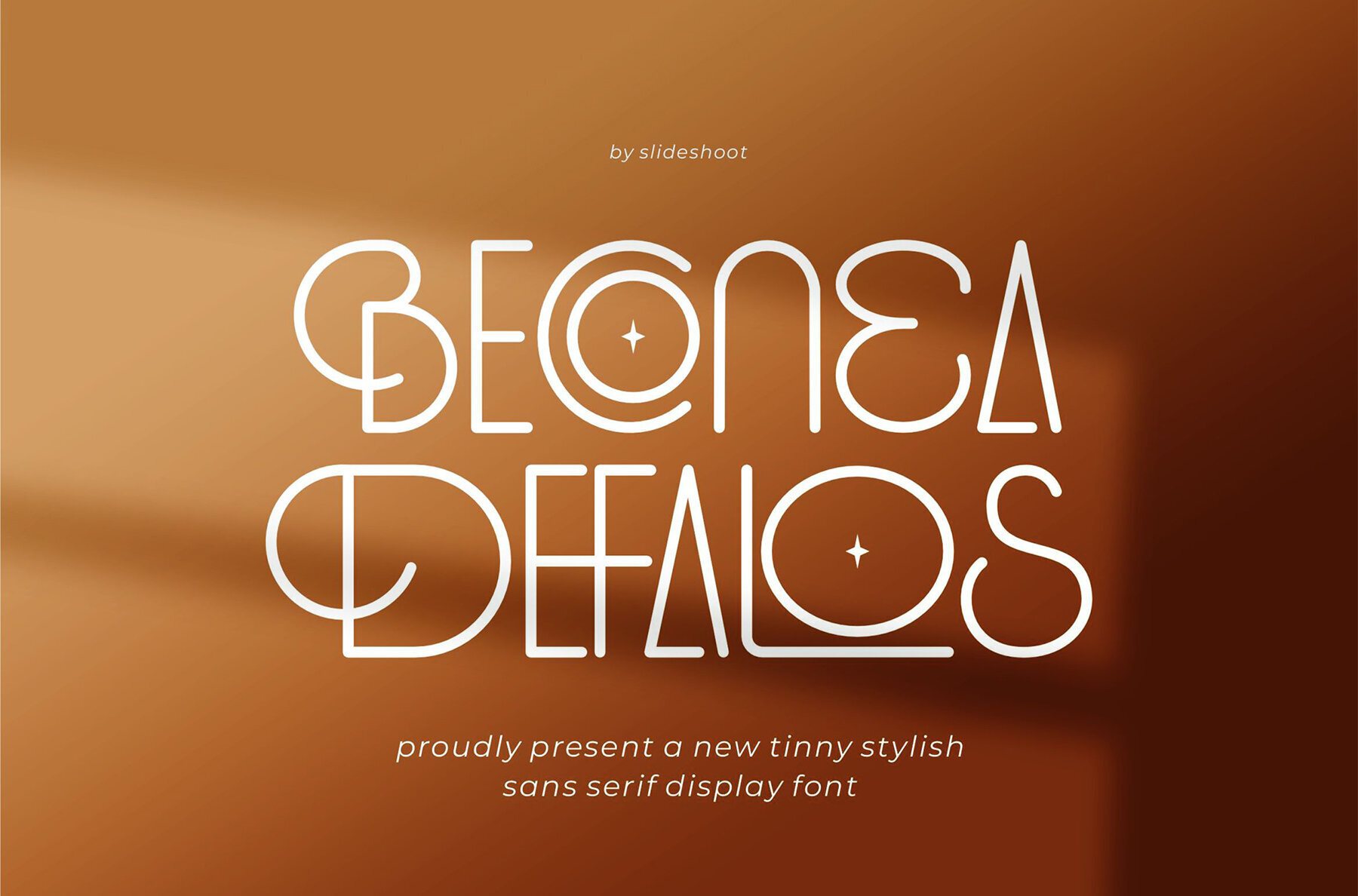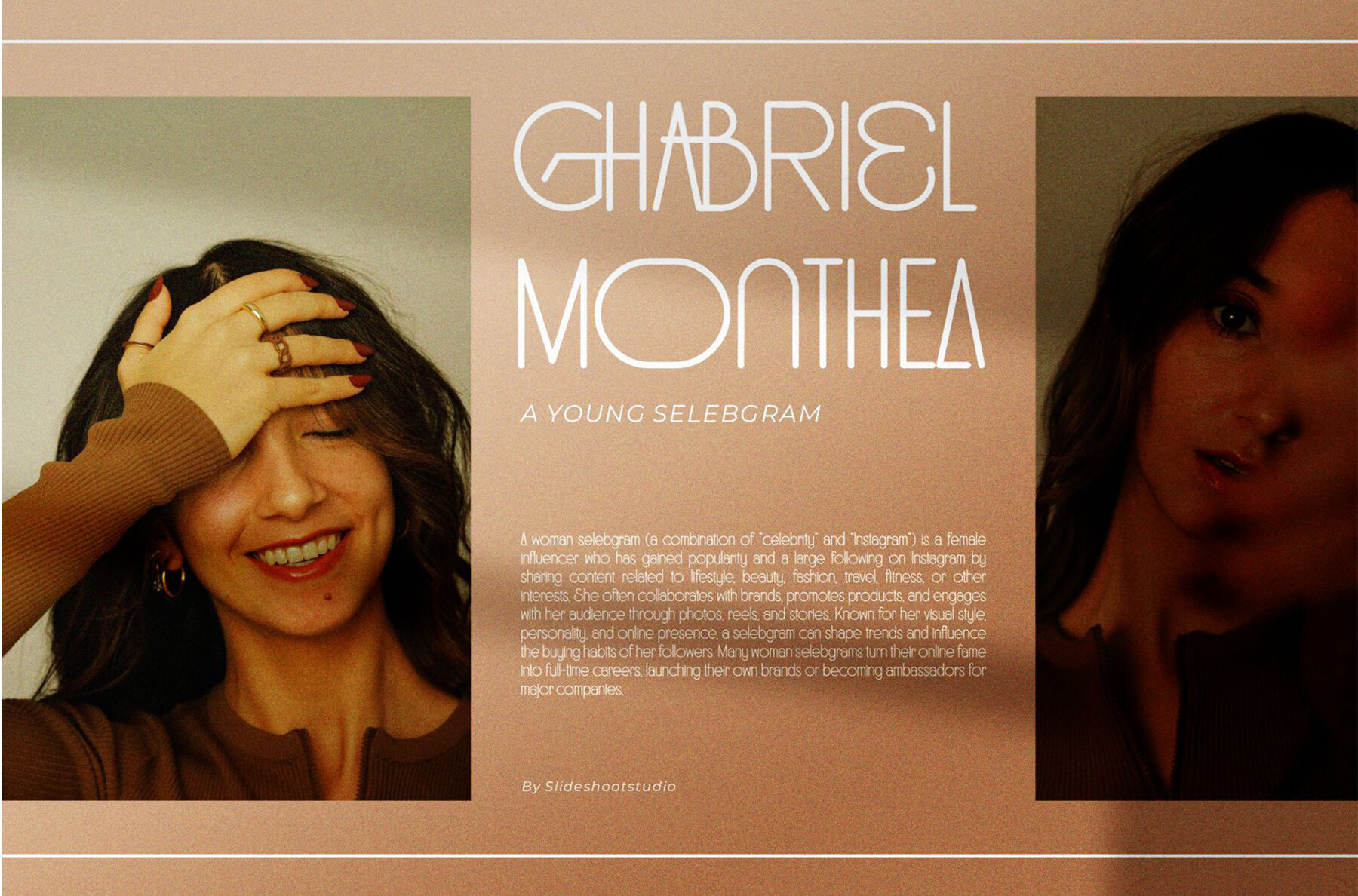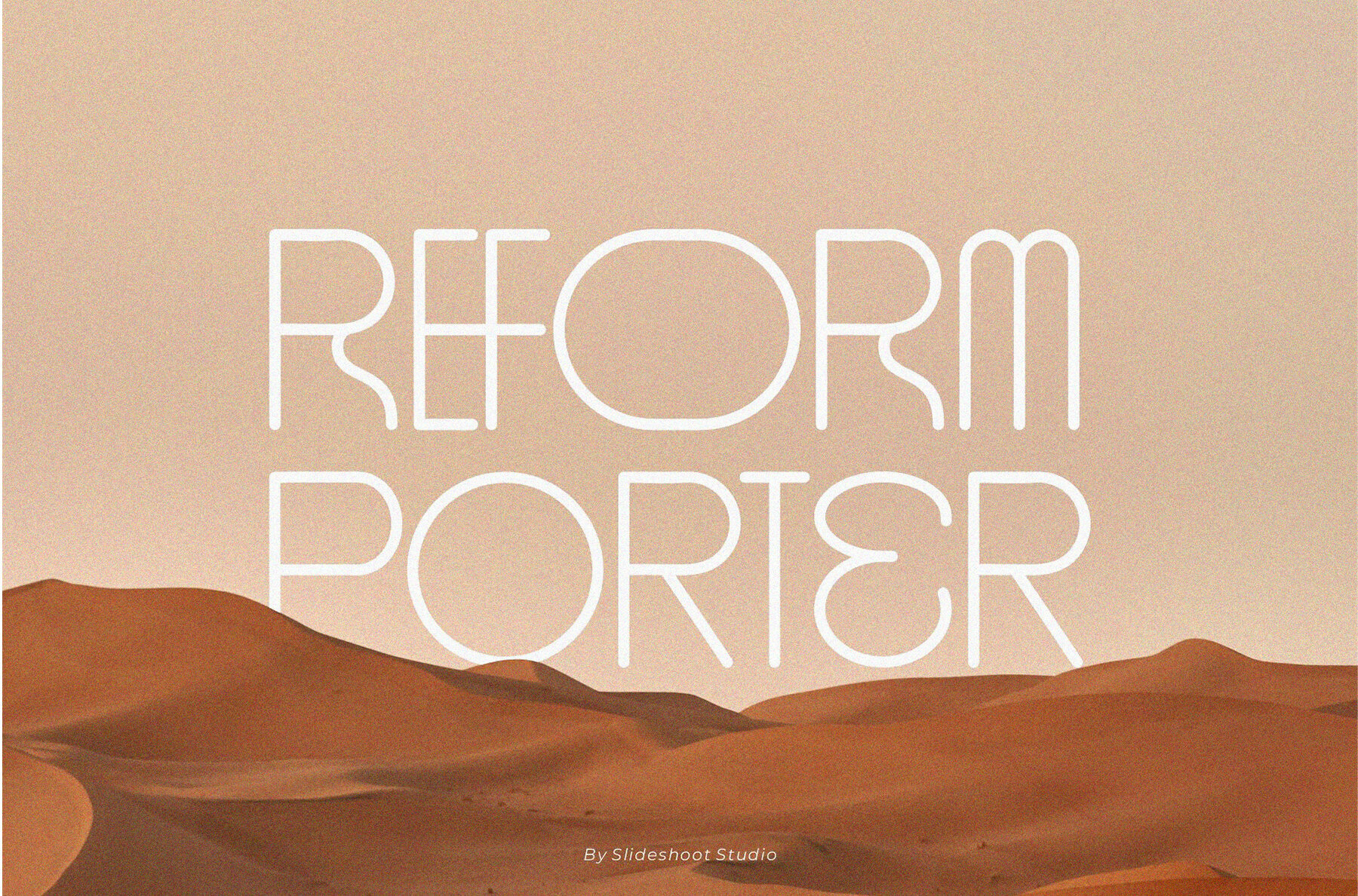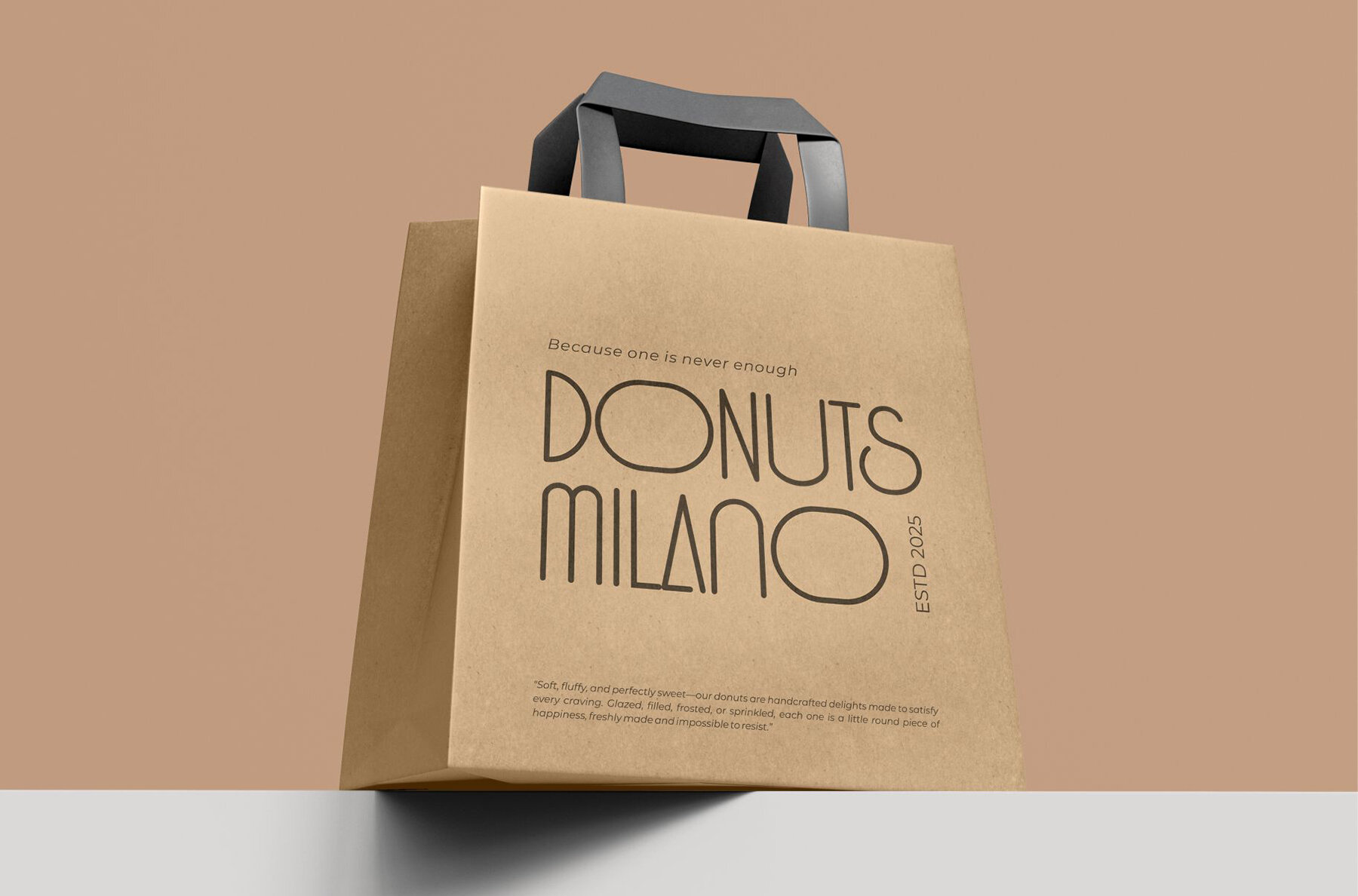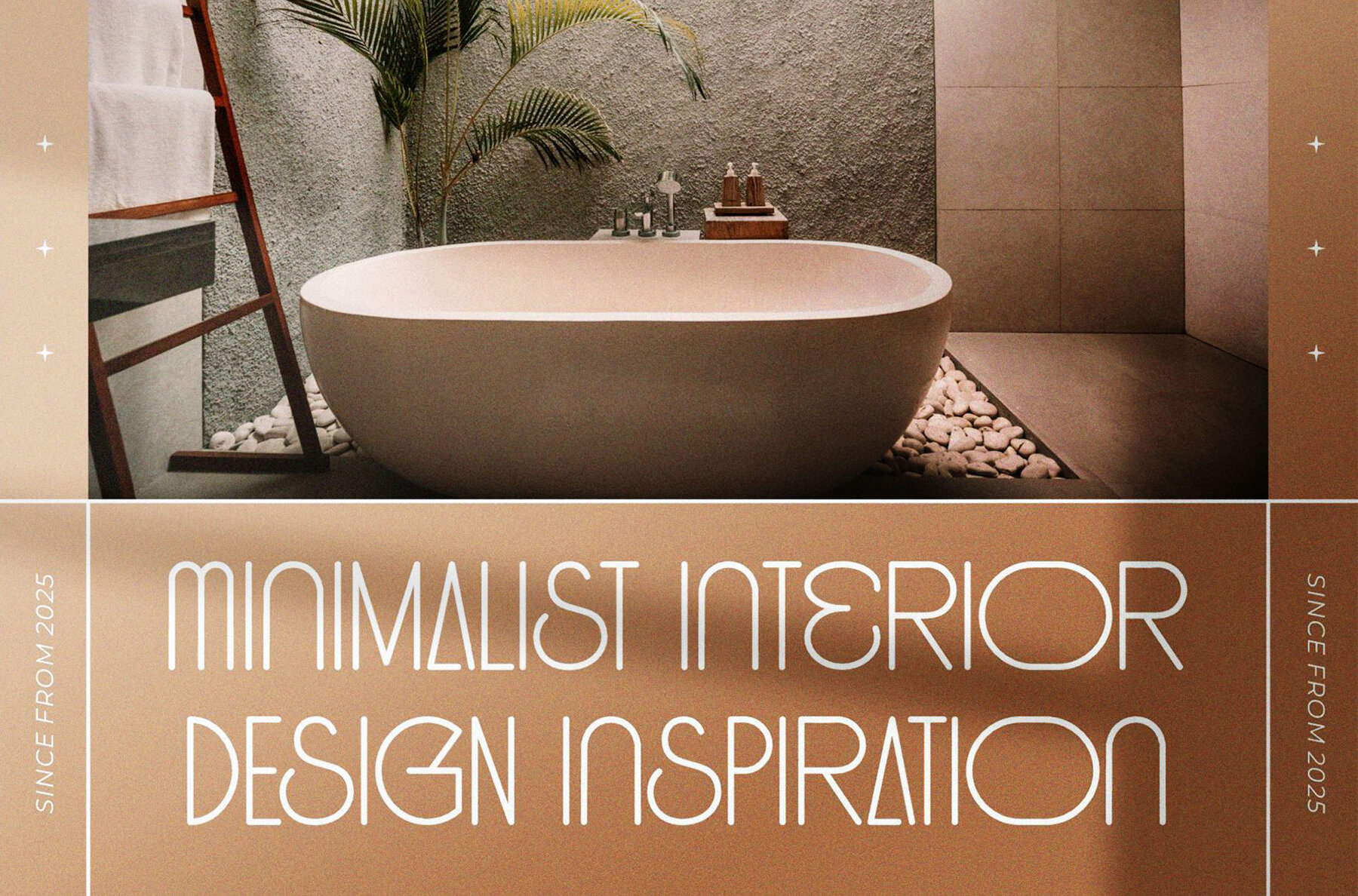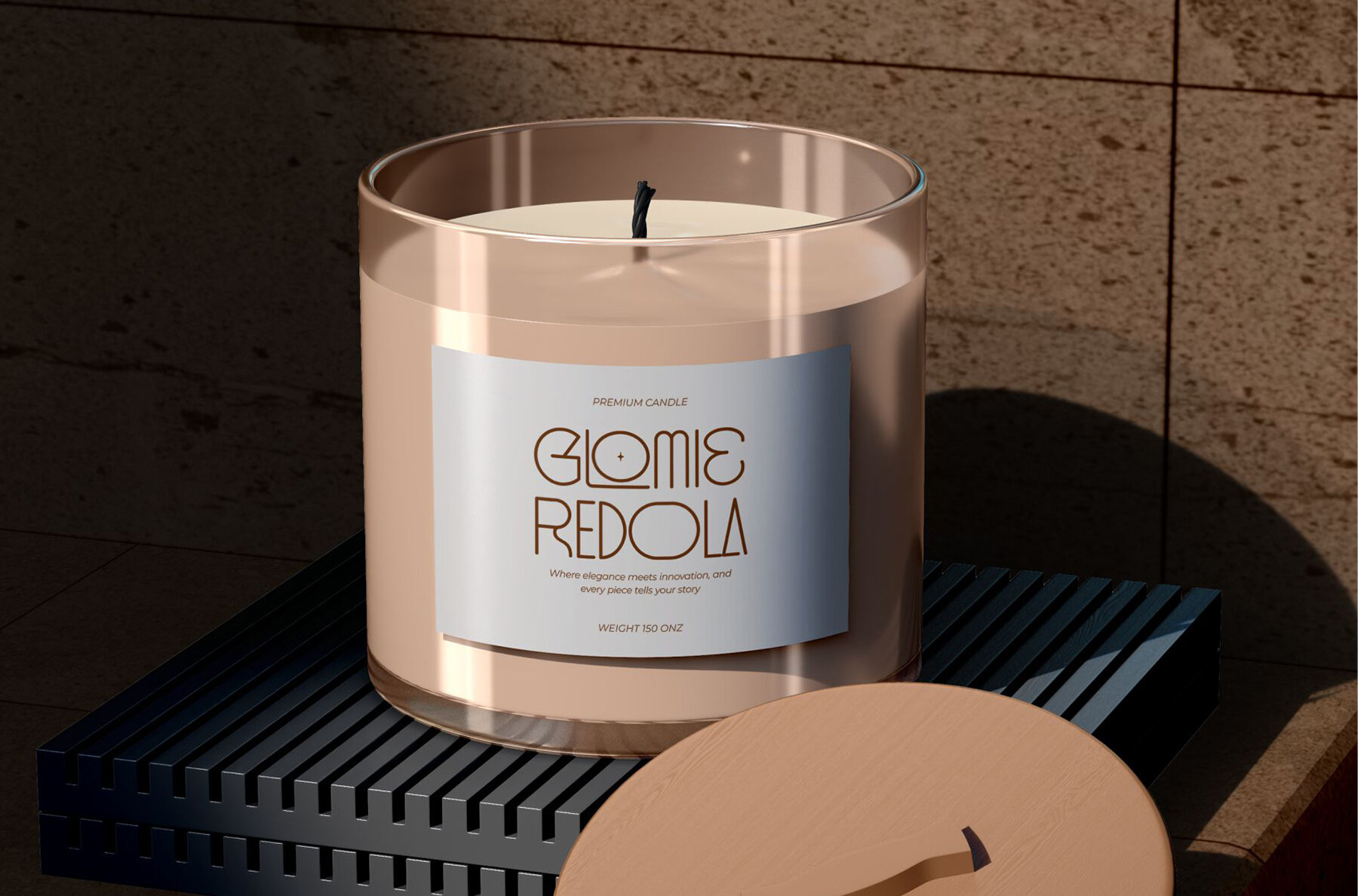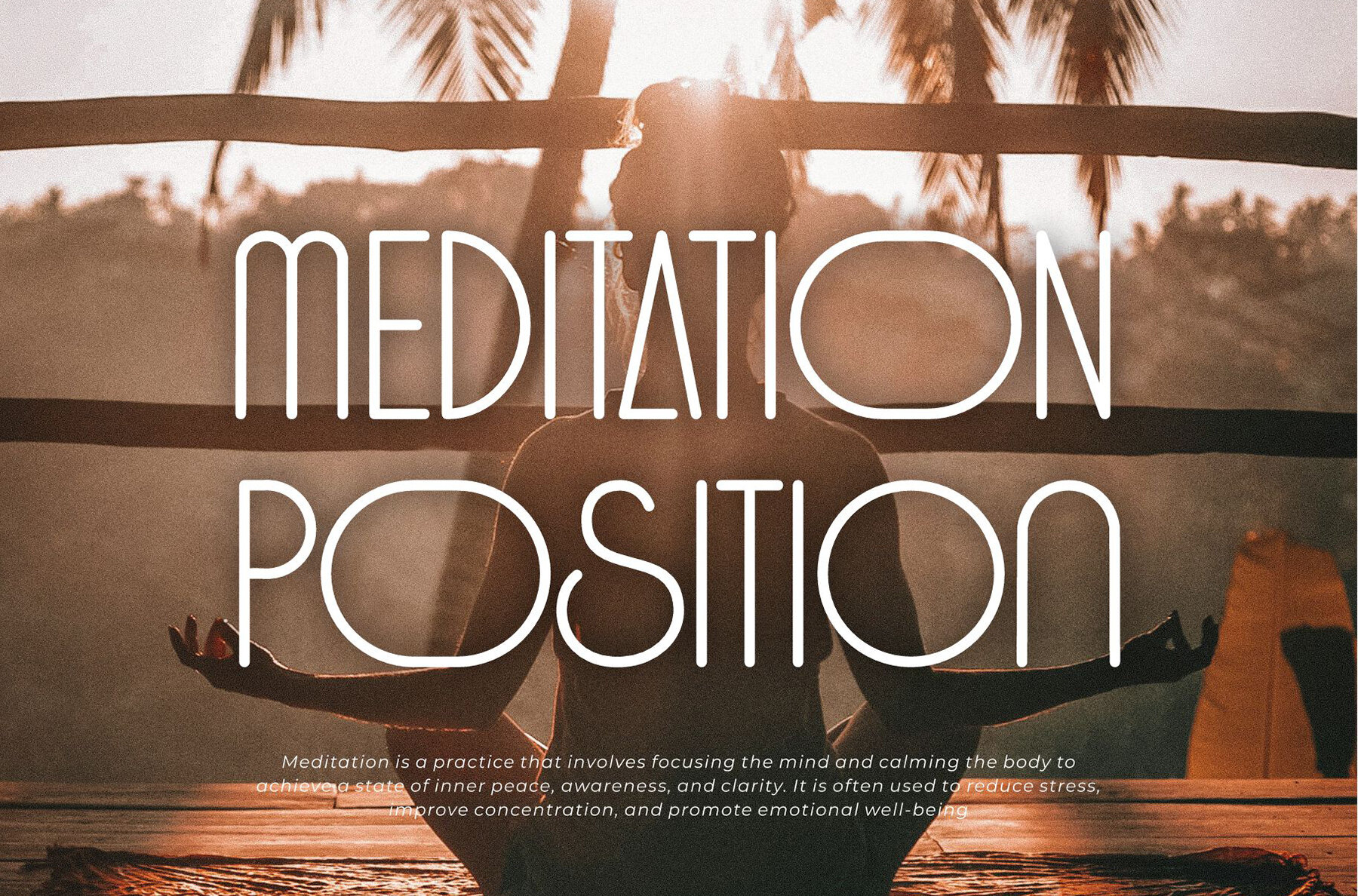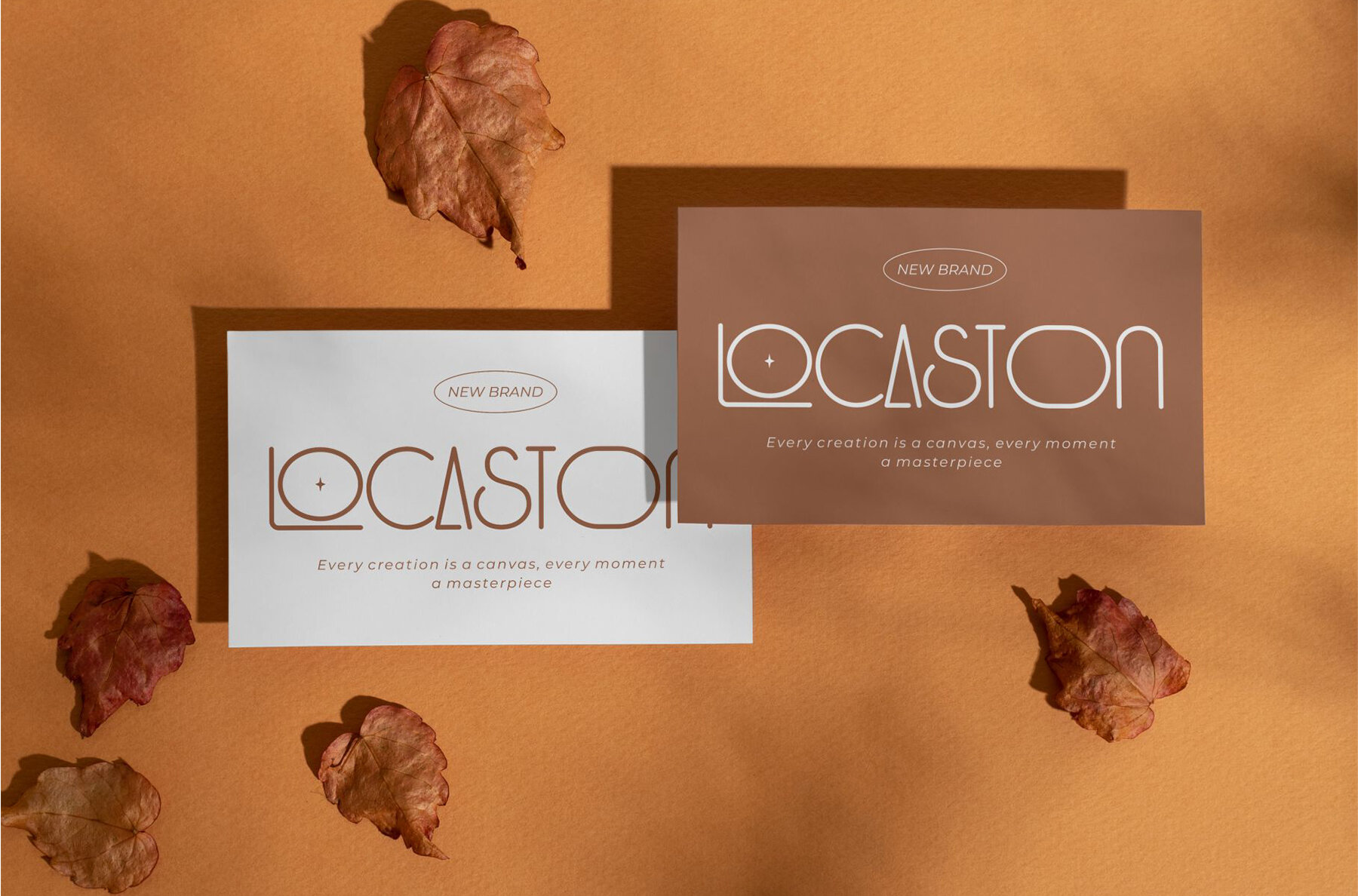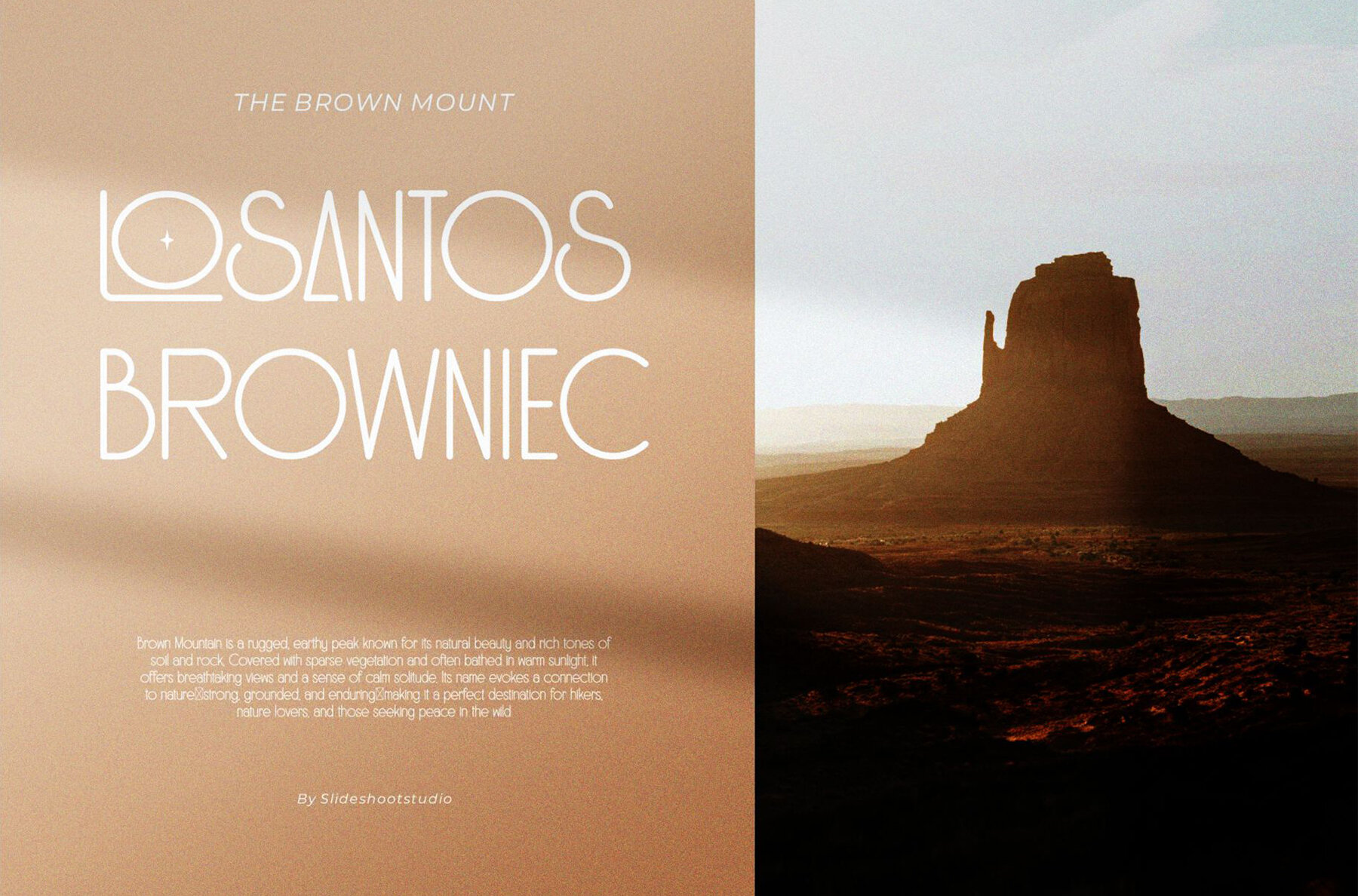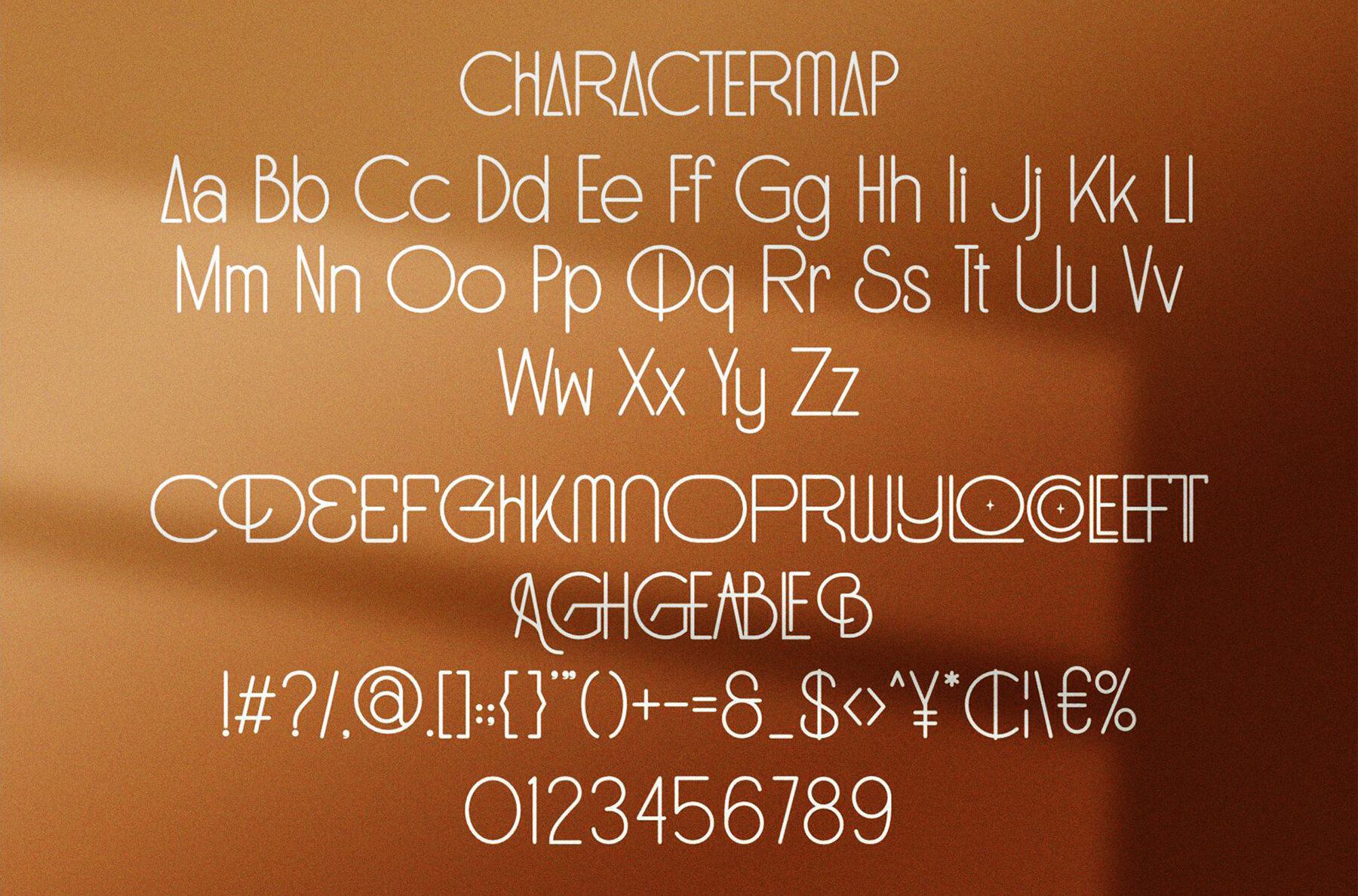
Beconea Defalos Font
Beconea Defalos
Beconea Defalos is a stylish sans serif that adds a unique charm with its wood-themed design. Ideal for modern projects, this display font merges perfectly with elements like invitation cards, company logos, film titles, business cards, book covers, and brand identities. Its distinct character makes it an excellent choice for adding flair to your creative work.Beconea Defalos